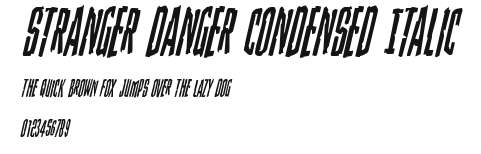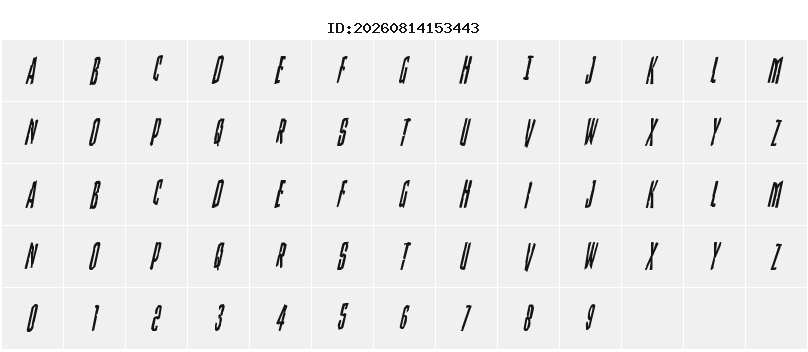
Stranger Danger Condensed Italic Preview
• Font Name: Stranger Danger Condensed Italic
• Font Style: Condensed Italic
• Font ID: Stranger Danger Condensed Italic: 2014
• Full Font Name: Stranger Danger Condensed Italic
• Version: Version 1.0; 2014
• PostScript Name: StrangerDangerCondensedItalic
About Stranger Danger Condensed Italic.ttf
Stranger Danger Condensed Italic.ttf is a modern, elegant sans-serif font designed for ultimate readability and visual harmony. Perfect for branding, headlines, web design, and print materials.